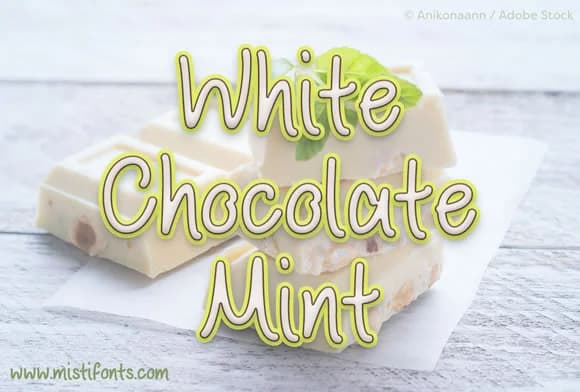
1 / 2About White Chocolate Mint Font
White Chocolate Mint by Misti is a flowing handwritten script that combines casual elegance with artisanal charm. The font's organic letterforms capture the warmth of a personal touch while maintaining enough sophistication for professional design applications. Its smooth curves and distinctive hand-lettered quality make it immediately recognizable and engaging, bringing an authentic handcrafted feel to digital and printed work alike.
The font shines across boutique branding applications, particularly in wedding stationery design, artisan packaging labels, and handmade product logos. It works beautifully for Instagram story graphics, social media post headers, and personalized greeting card designs where authenticity resonates with audiences. DIY makers and small business owners will appreciate how well it translates to vinyl decals, custom apparel designs, and hand-lettered signage projects. The font's versatility extends from feminine-leaning cosmetics and skincare branding to rustic cafe menus and craft fair marketing materials. Its consistent letterforms ensure a polished appearance whether you're working on logo treatments or product packaging.
With full character support for creative layouts, White Chocolate Mint delivers reliable performance across varied design applications. Whether you're designing for print, digital platforms, or hand-cut vinyl projects, this script typeface provides the personal warmth that modern audiences increasingly value. Find White Chocolate Mint on Creative Fabrica and add handcrafted elegance to your design toolkit.
White Chocolate Mint Font is a script font that shines as a display or heading face. Pair it with a clean sans-serif or serif font for body text β the contrast creates a clear hierarchy while the two styles stay balanced and easy to read.
White Chocolate Mint Font
by Misti